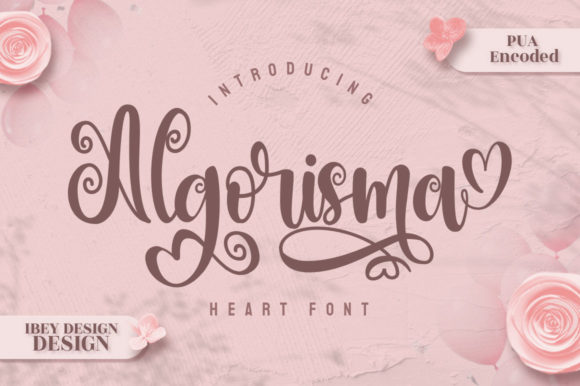
Prepare to be spellbound by the enchanting world of Algorisma, a script font that will transport your designs to new heights of sophistication. Its delicate curves and graceful swashes dance across the page, leaving an unforgettable impression that will captivate your audience.
Imagine your wedding invitations adorned with the timeless beauty of Algorisma. Each letter will be a masterpiece, evoking the romance and elegance of your special day. Your vows will be etched in a font that radiates love and commitment, creating a keepsake that you will cherish for a lifetime.
For designers seeking to add a touch of magic to their creations, Algorisma unlocks a realm of possibilities. Its versatility extends from ethereal branding to captivating social media posts. Let your imagination soar as you explore the endless ways to infuse your designs with a touch of enchantment.
The possibilities are endless when you wield the power of Algorisma. Its PUA encoding empowers you to effortlessly access a treasure trove of glyphs and swashes, giving you the creative freedom to craft designs that are uniquely yours.
Join the countless designers who have fallen under the spell of Algorisma. Let its captivating charm inspire your creations and elevate your designs to new heights of elegance and enchantment.